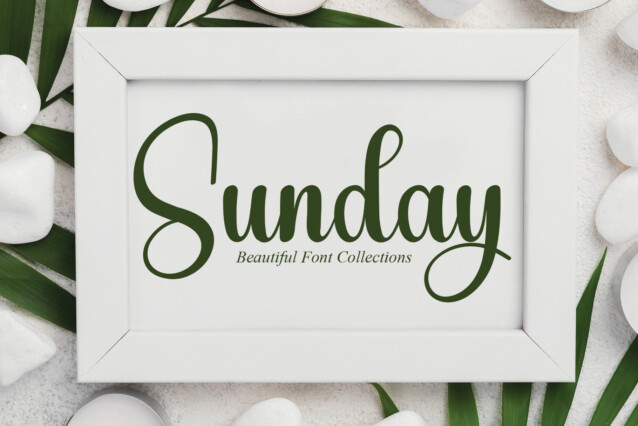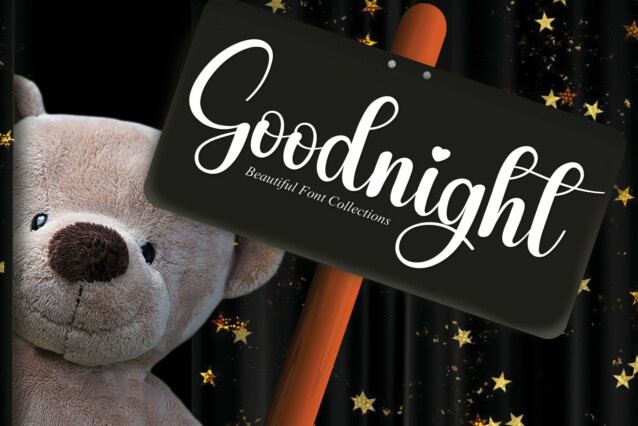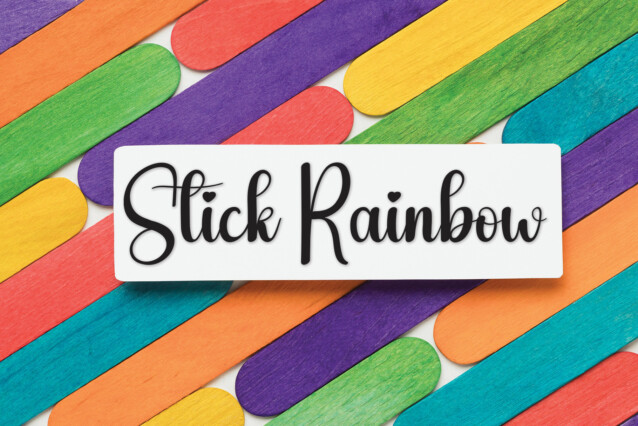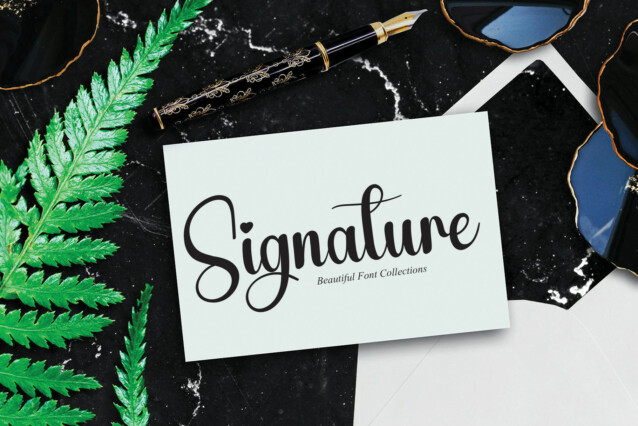
Story Paper Script Font
Story Paper Script Font is an elegant handwritten typeface. Grab it now and create wall displays, wedding invitations, social media post logos, advertisements, product packaging, product designs, labels, photography, watermarks, invitations, stationery, and any project that requires taste handwriting.